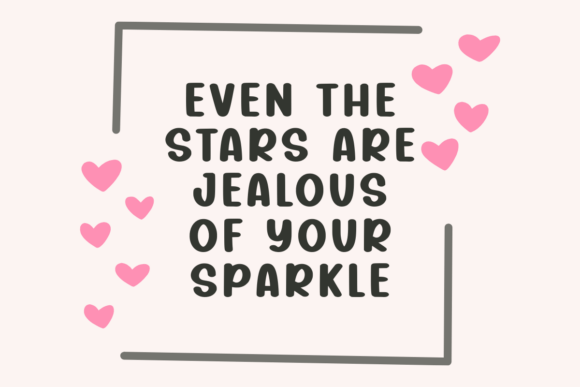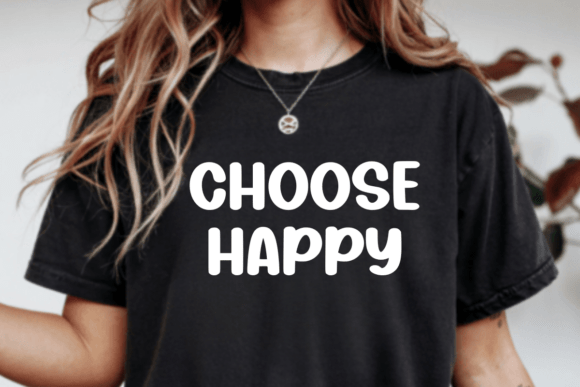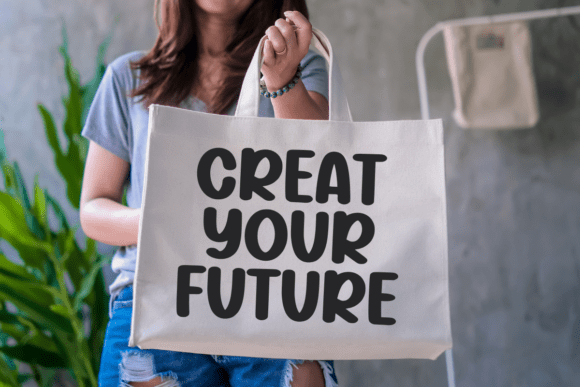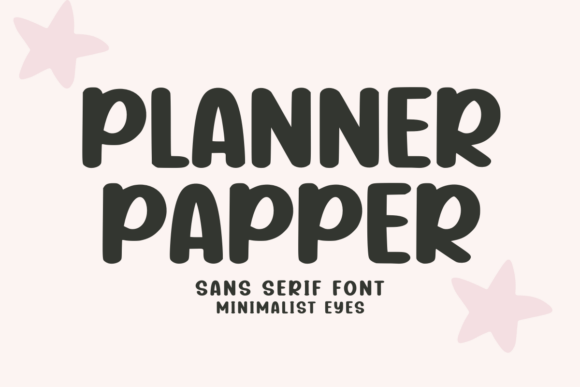
Introduction to Planner Papper Font
Planner Papper is a playful and bold sans serif font designed with a charming, hand-drawn feel.
Its thick, rounded strokes and minimalist aesthetic make it the perfect choice for planners, journals, and creative crafts Whether you are designing digital stickers, greeting cards, or whimsical branding, this font adds a friendly and approachable touch to any project.
Planner Papper Font offers exceptional quality and versatility, making it a valuable addition to your design toolkit. Whether you’re creating for personal projects or commercial use, Planner Papper Font delivers professional results.